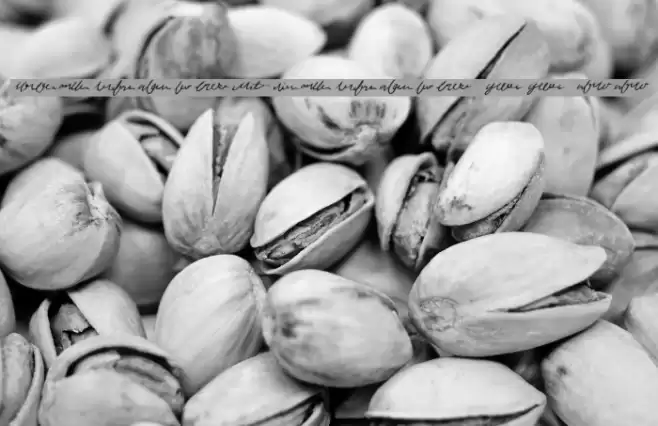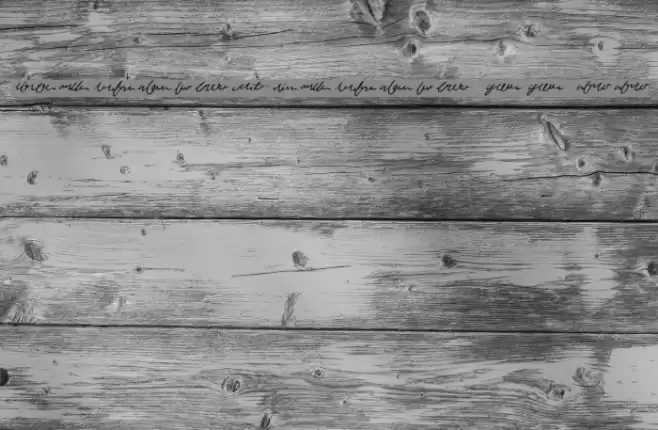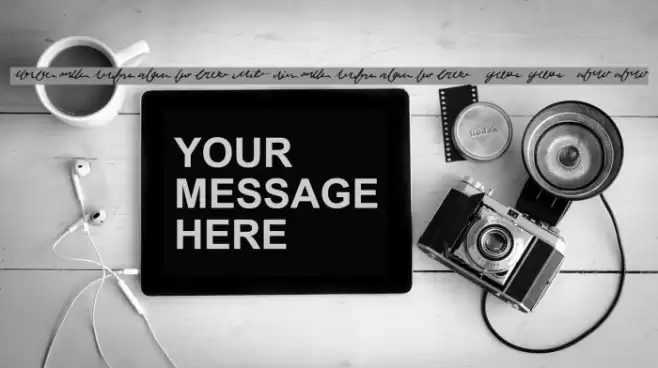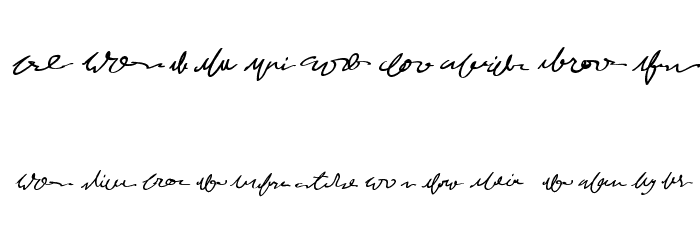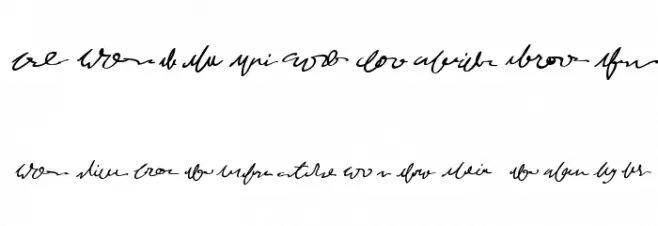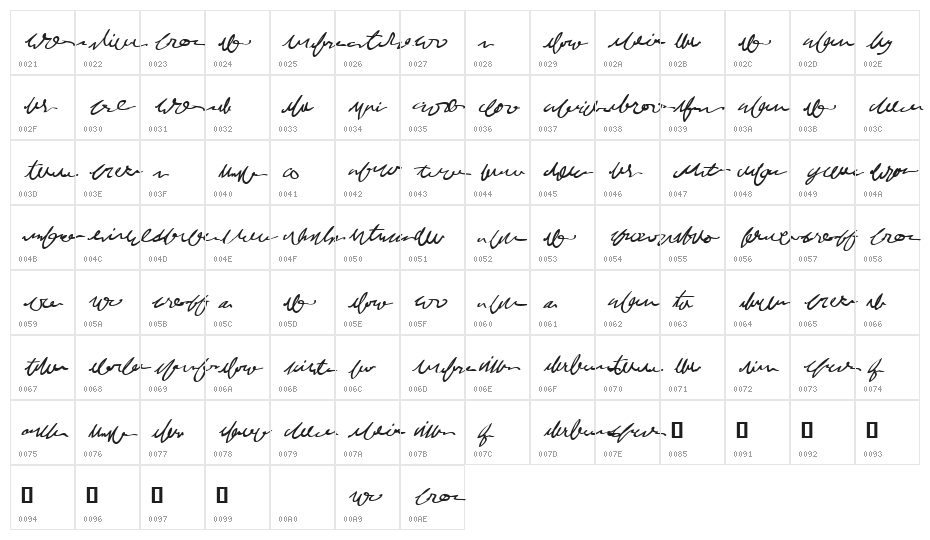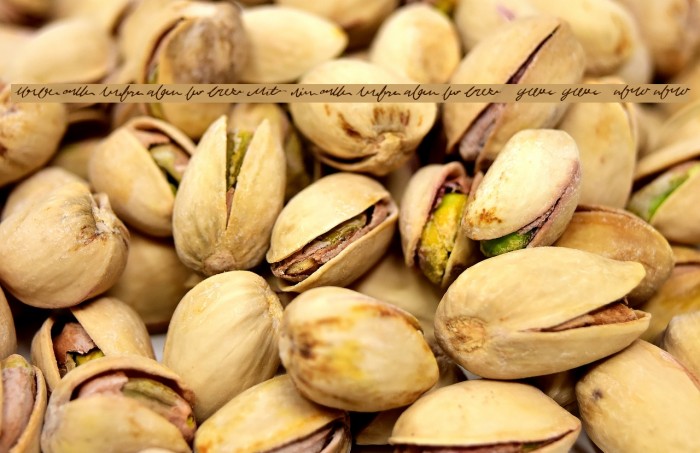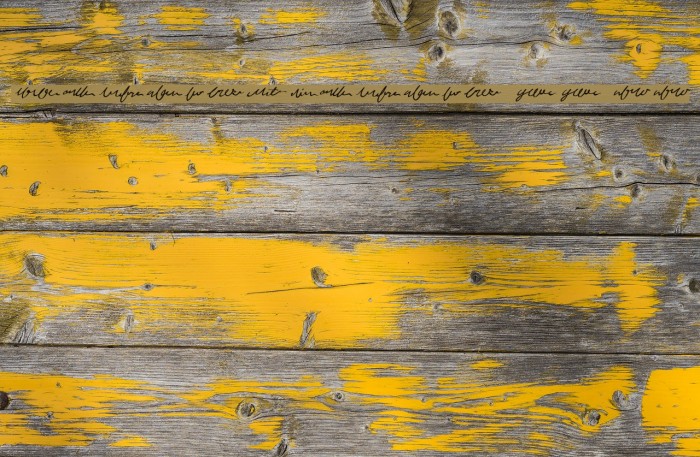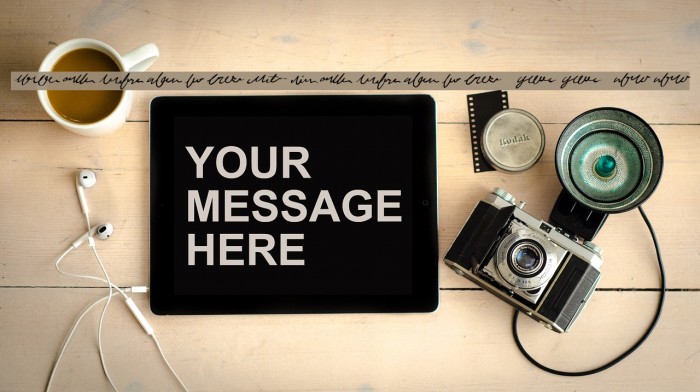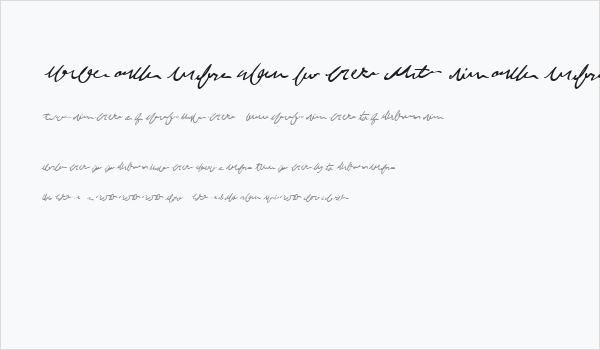
MumbleGrumble II BB Font
MumbleGrumble II BB Description
This font embodies a dynamic and expressive handwritten style, characterized by its fluid and cursive strokes. The letters are connected, creating a seamless flow that mimics natural handwriting. Each character varies slightly in height and slant, adding to the authenticity and organic feel. The strokes are moderately thick, with a consistent weight throughout, enhancing readability while maintaining a casual and personal touch. This font is ideal for projects that require a personal or informal tone, such as invitations, greeting cards, or personal branding. Its unique style captures attention and conveys a sense of individuality and creativity.
A dynamic, expressive handwritten font with fluid, cursive strokes from Uncategorized fonts.
- Proposed Projects: Ideal for invitations, greeting cards, personal branding, and creative projects.
- Character Spacing: Tight
- Overall Style: Casual, Personal
- Use Case: Logos, Invitations, Greeting Cards